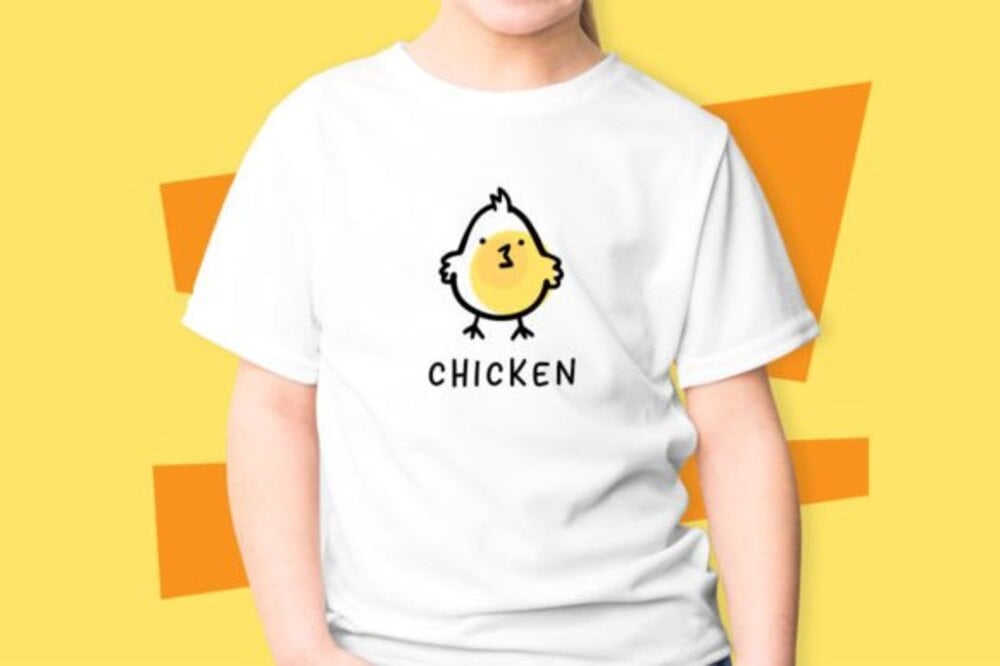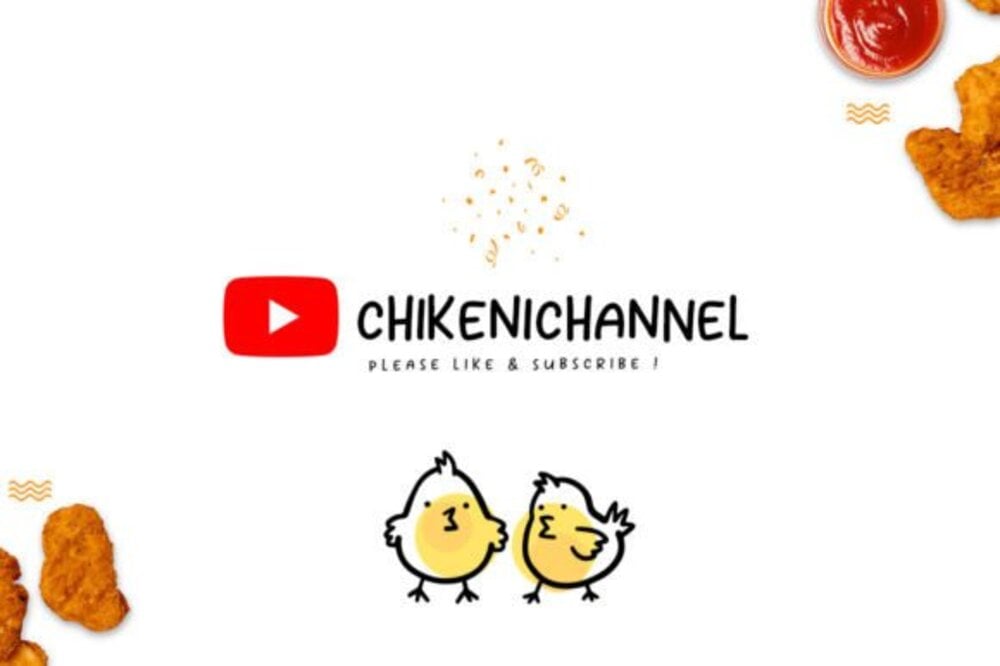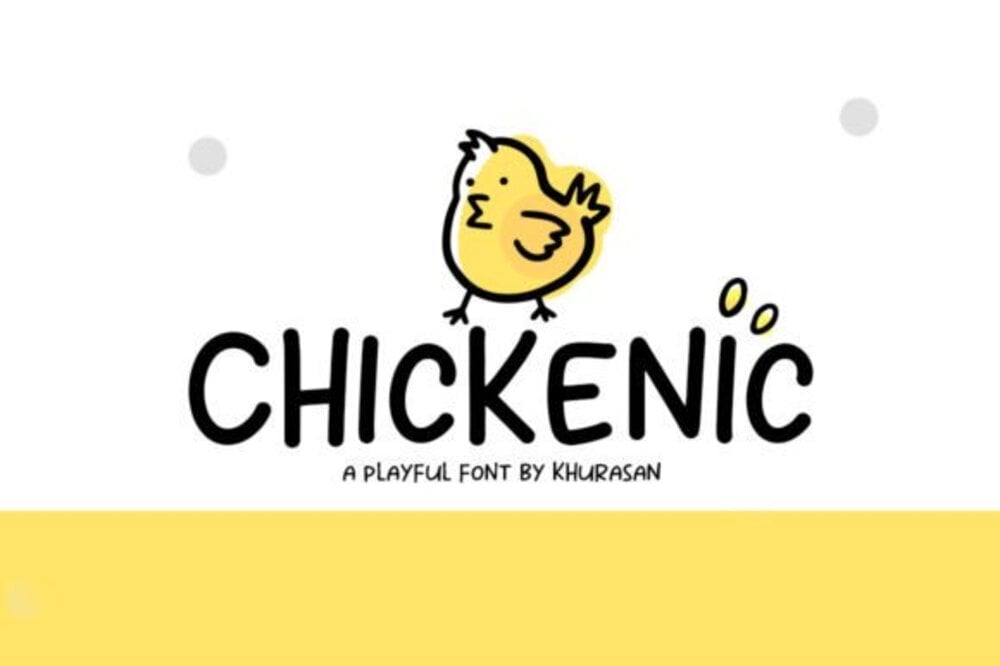
Chickenic Font
Chickenic is a quirky, hand-drawn font with a bouncy, cartoonish personality. Its playful curves and uneven strokes give it a lively, energetic feel, perfect for children’s books, food packaging, and fun branding. The font’s organic, slightly messy style adds a homemade charm, making it ideal for designs that need a warm, friendly, and whimsical touch.